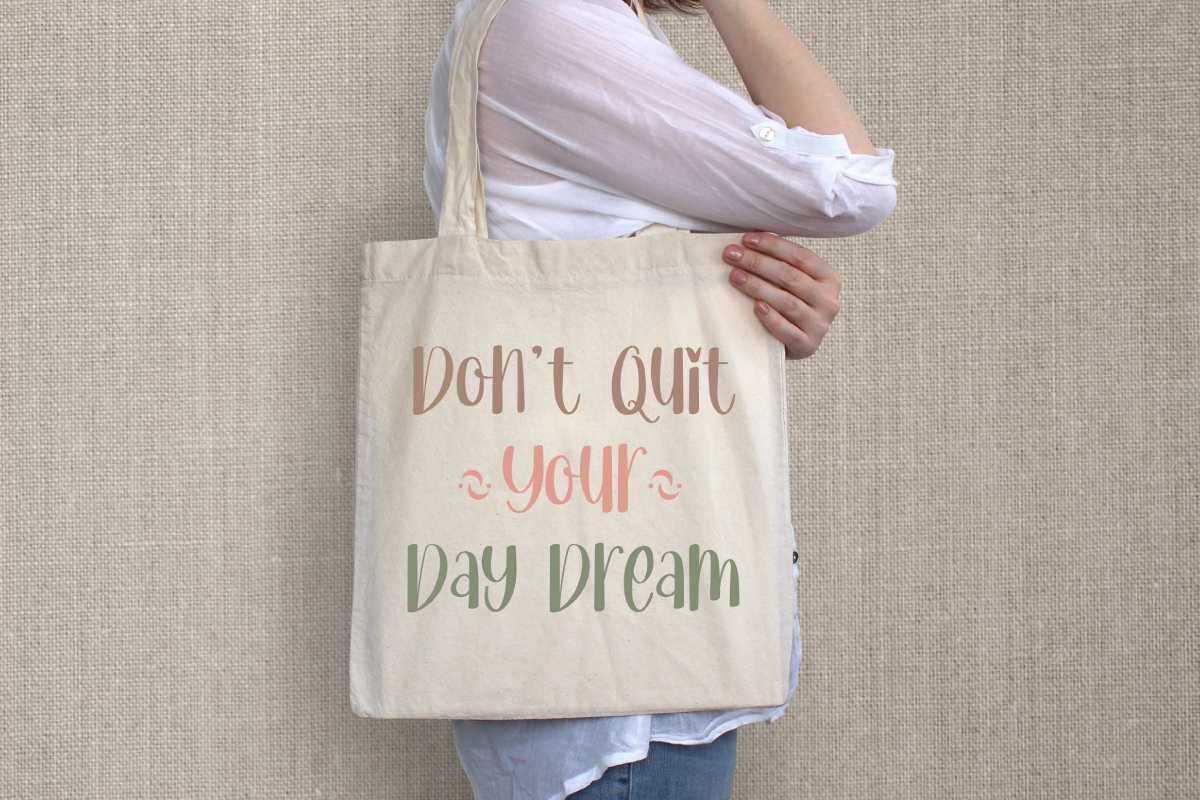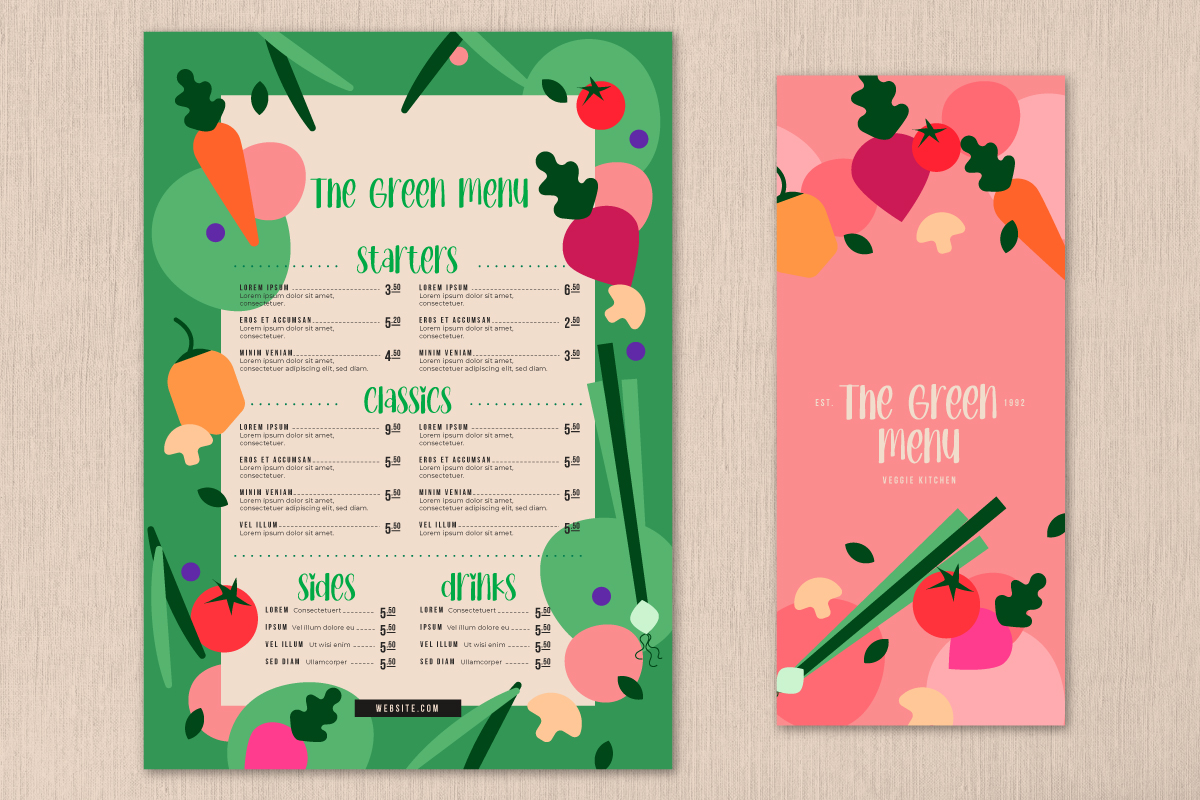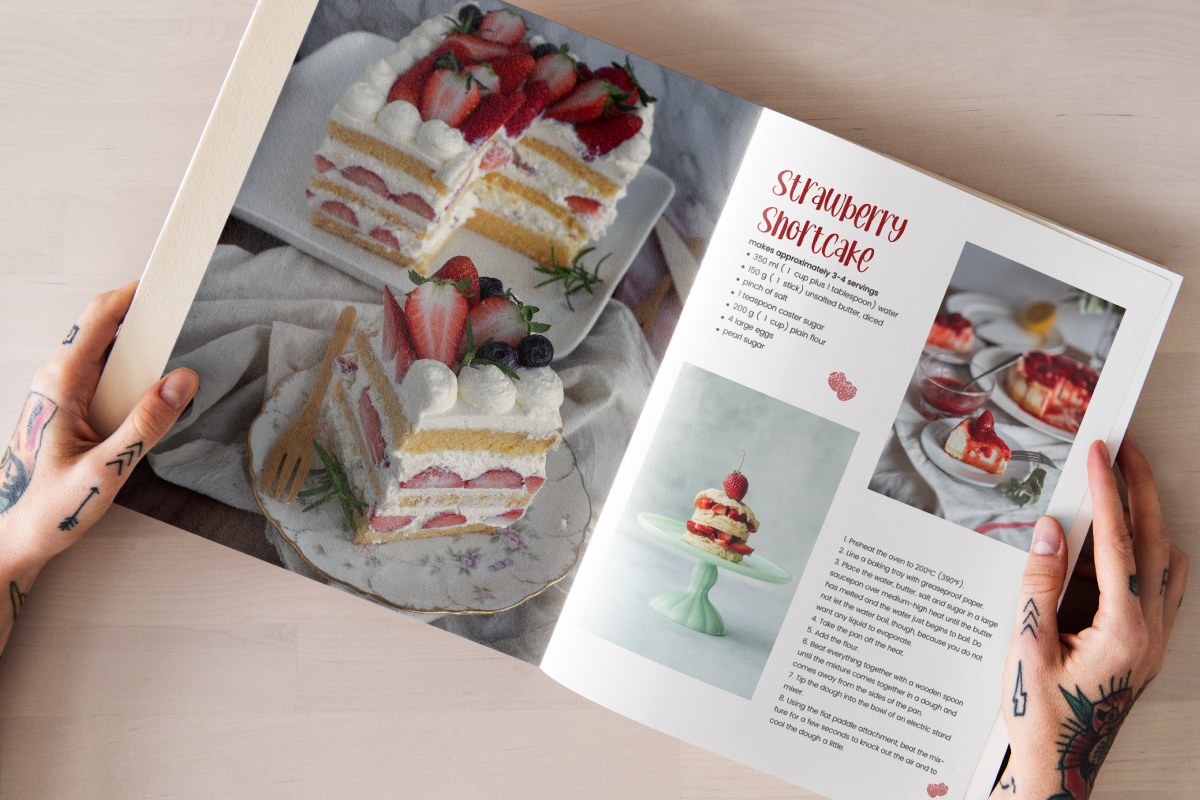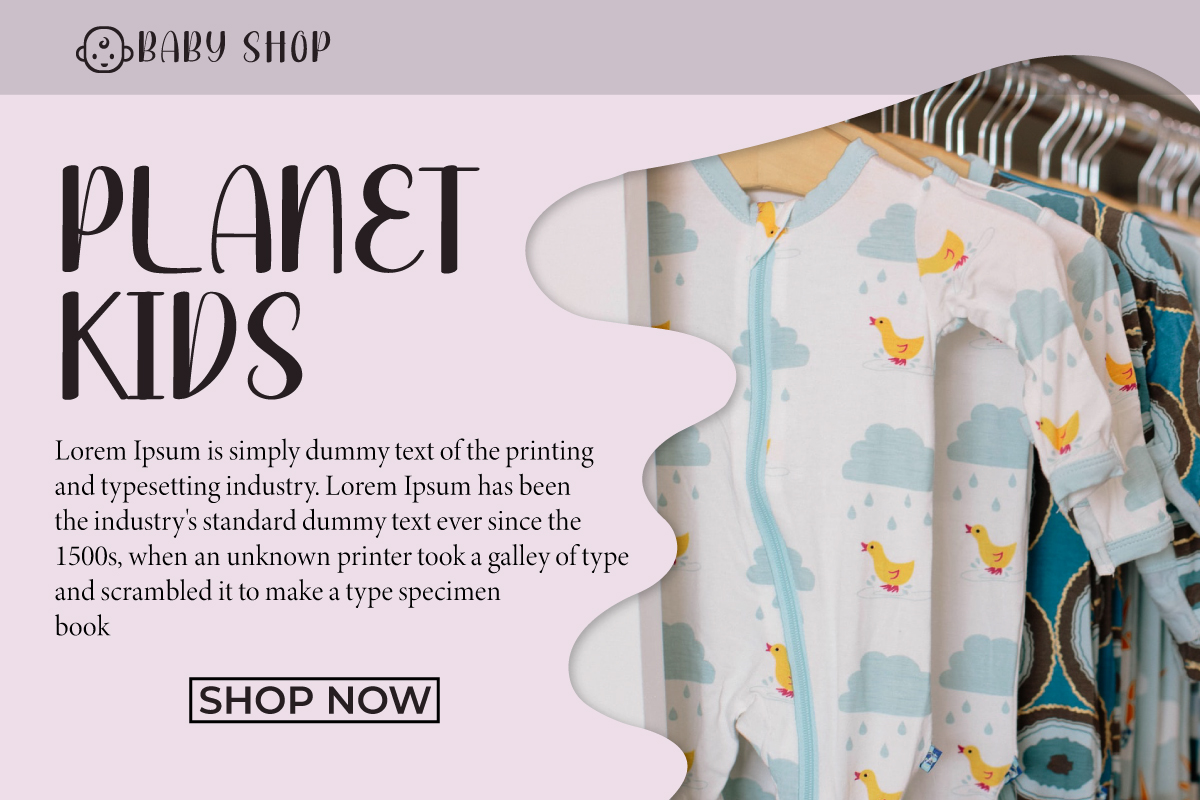
Permen Karet Font
Permen Karet Script Font
It’s a cute stylish handwritten font inspired from gummy candy. It looks amazing on menu attachments, quotes, logos, business cards, the use of printed items such as bags, t-shirts, books or also the use of letters in the world of technology such as, web page layouts, applications and any other designs that require a handwritten touch.